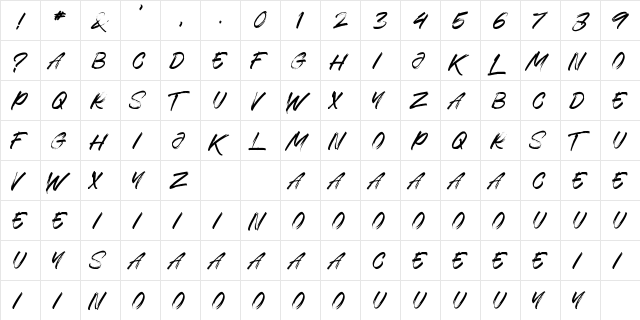
Rhogsainel Regular
| Foundry | Kotak Kuning Studio |
| Designer | Kotak Kuning Studio |
Design Context for Rhogsainel Typeface
Rhogsainel is a composed and adaptable typeface that performs quietly and consistently across a wide range of design contexts.